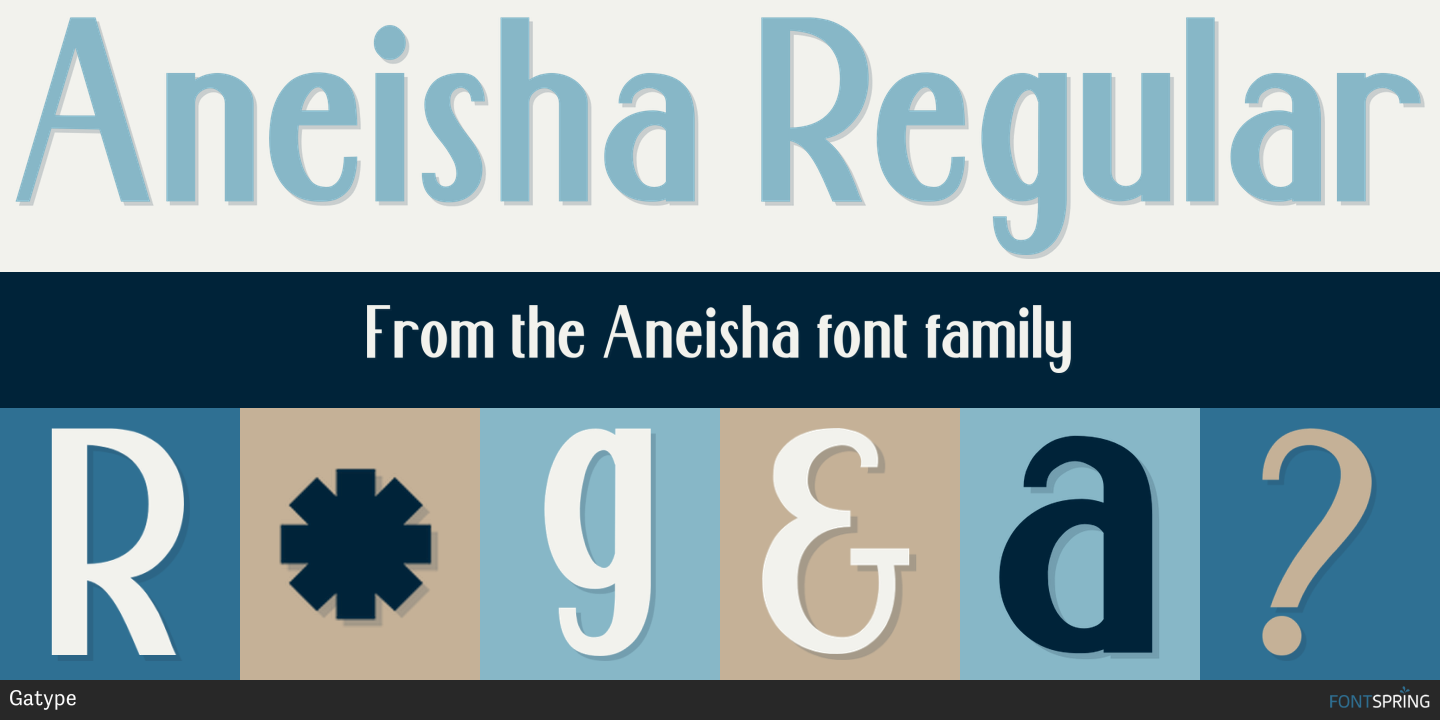
Aneisha
Aneisha is an art deco and display sans font family published by Gatype.
Made for text display purposes, the expanded Aneisha brings a modern and strong feel to your designs. With a bold style, this font is suitable as the main text/header text on websites or layout designs. The expanded Akira also includes alternate glyphs that make it easier for you to customize. Aneisha brings OpenType style alternatives, International binders, and support for most Western Languages included. To enable the OpenType Stylistic alternative, you need a program that supports OpenType features such as Adobe Illustrator CS, Adobe Indesign & CorelDraw X6-X7, Microsoft Word 2010 or later.